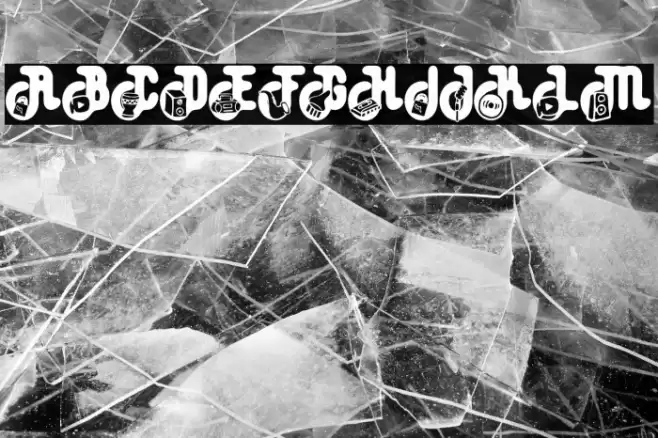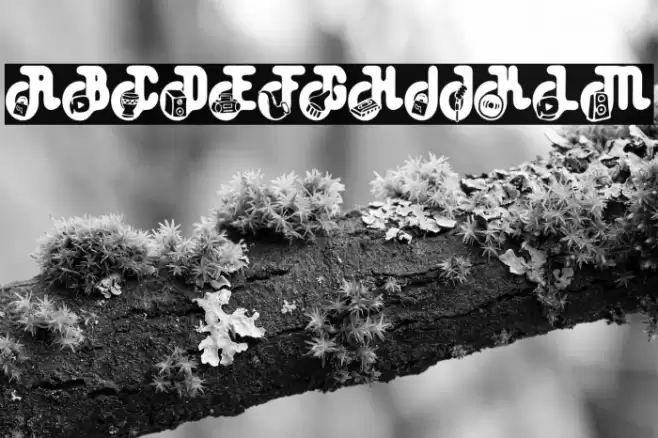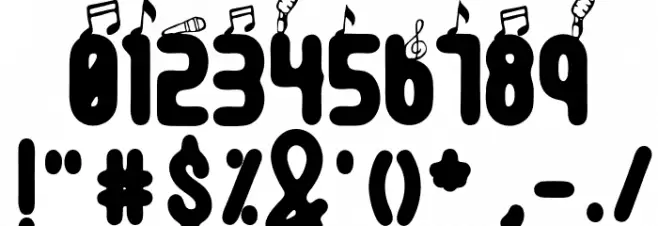
TempoFREE Font
TempoFREE Description
This playful and energetic font features bold, rounded characters with musical elements integrated into each letter. The uppercase letters are adorned with various musical icons such as microphones, notes, and instruments, adding a dynamic and thematic touch. The lowercase letters maintain a thick, smooth appearance, while still incorporating subtle musical motifs. Numbers and special characters follow the same bold style, ensuring consistency throughout. This font's unique design makes it stand out, capturing attention with its creative and thematic elements.
A bold, music-themed decorative font with integrated musical icons from Decorative fonts.
- Proposed Projects: Ideal for music event posters, album covers, children's music books, and any project requiring a lively, thematic font.